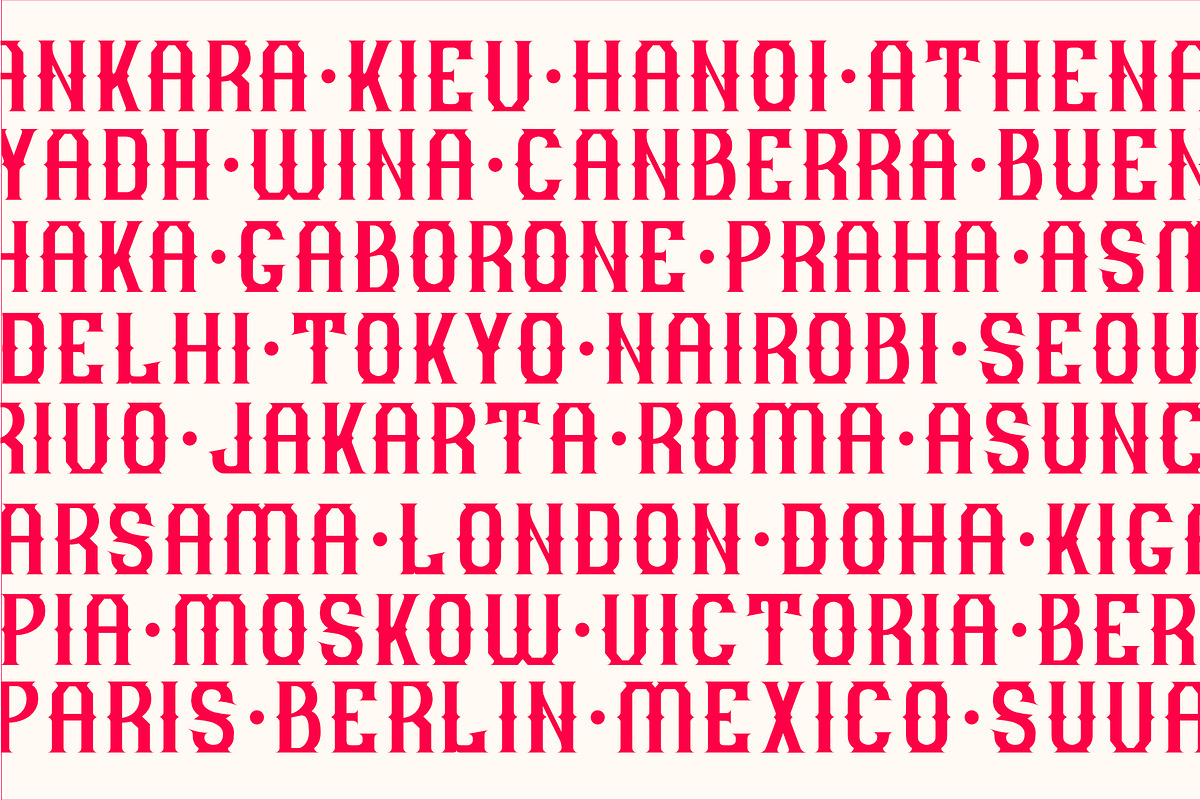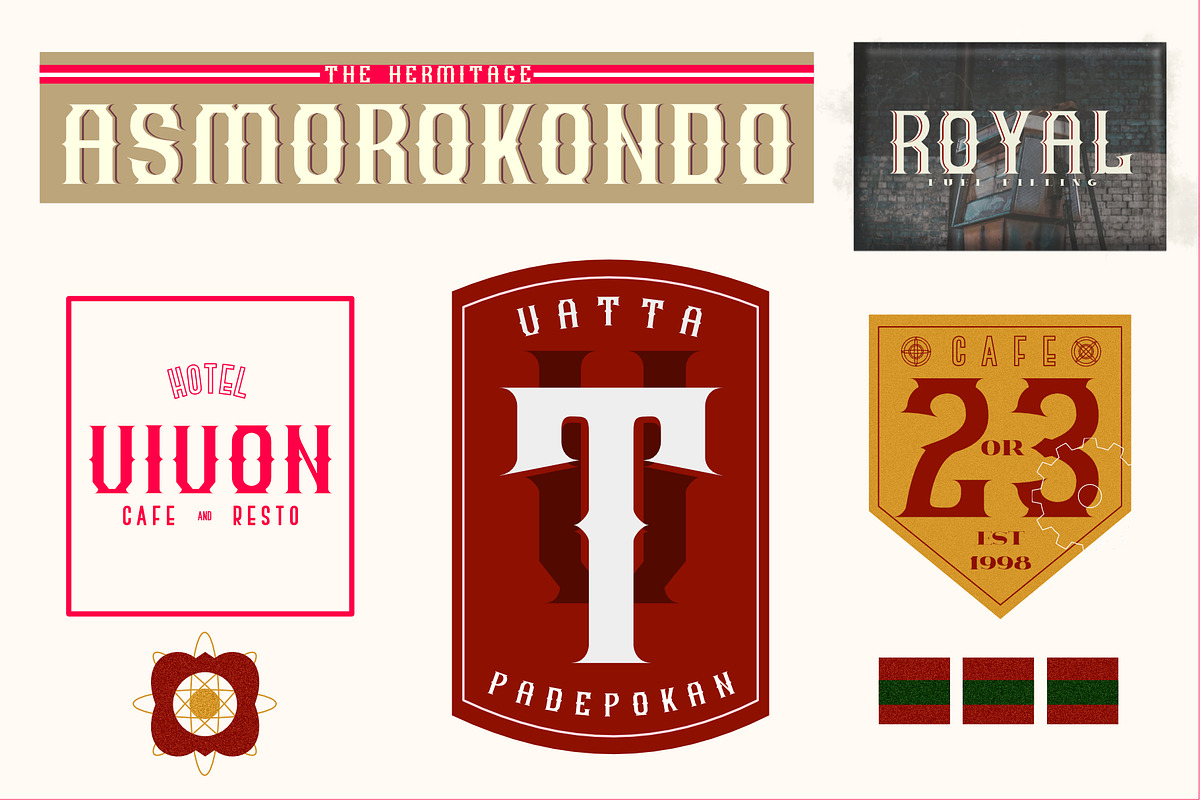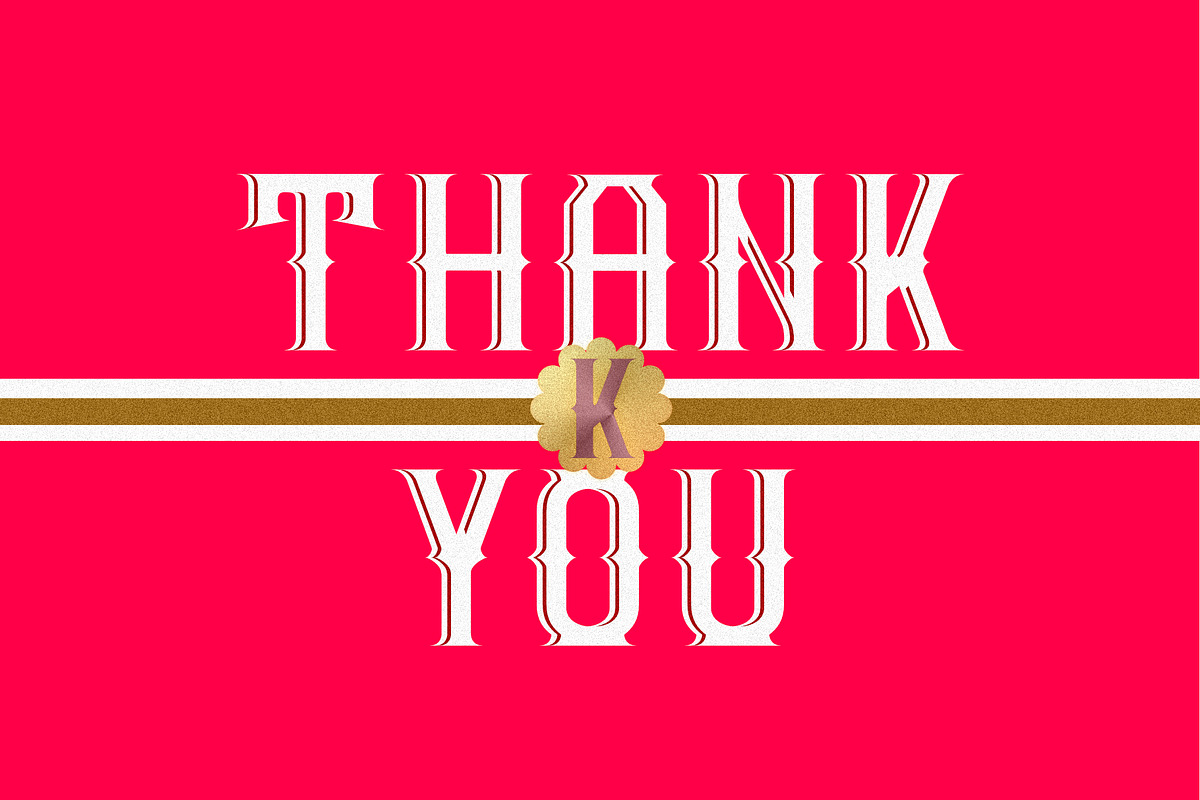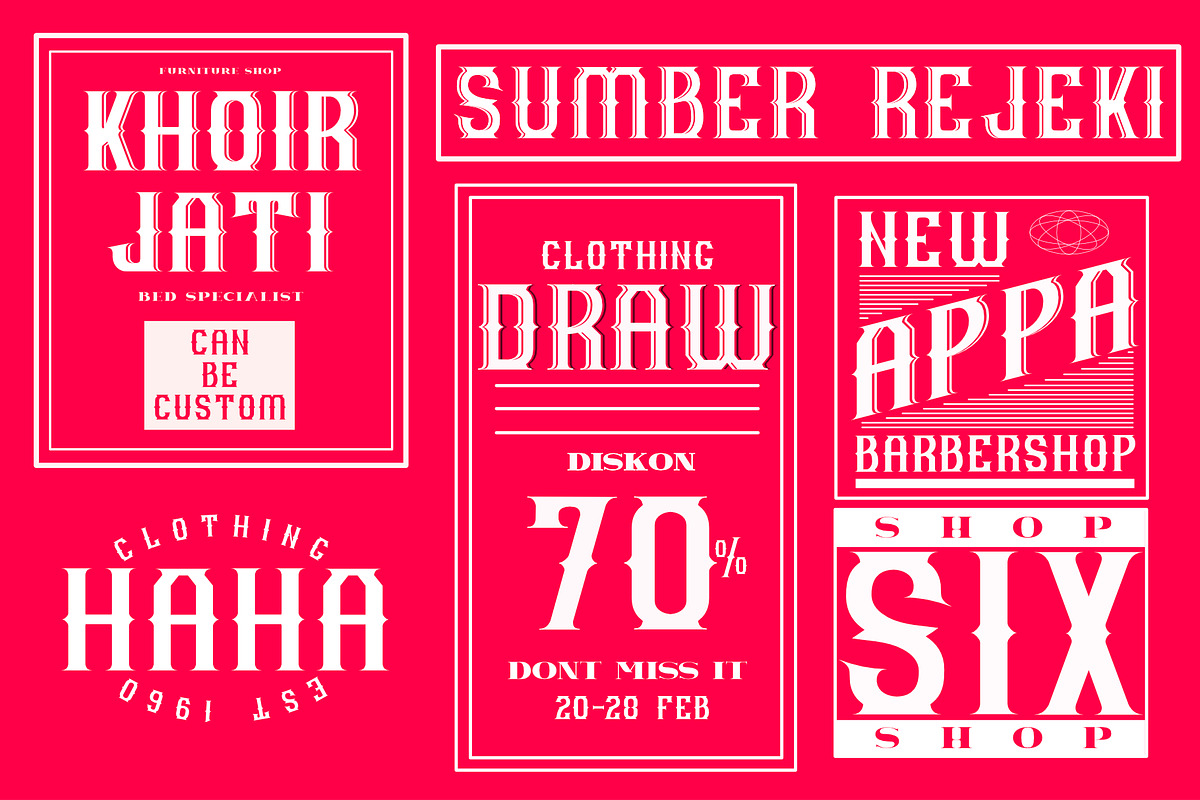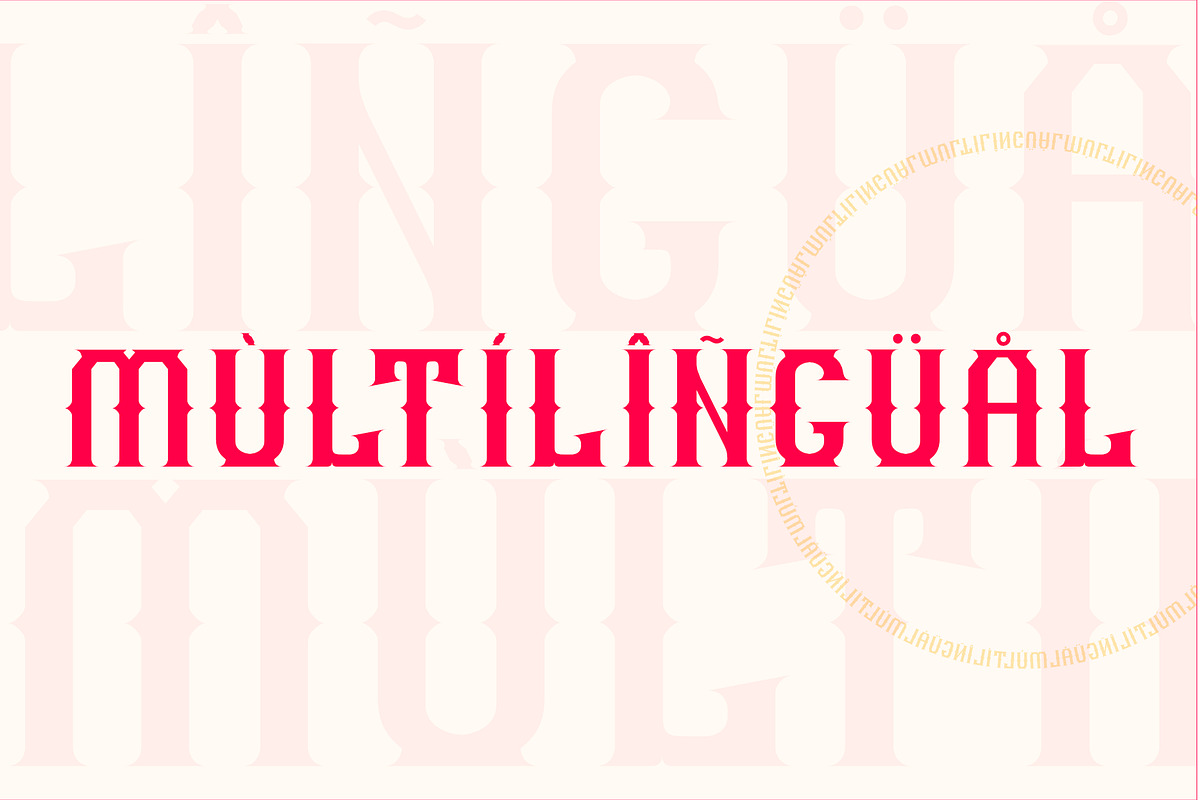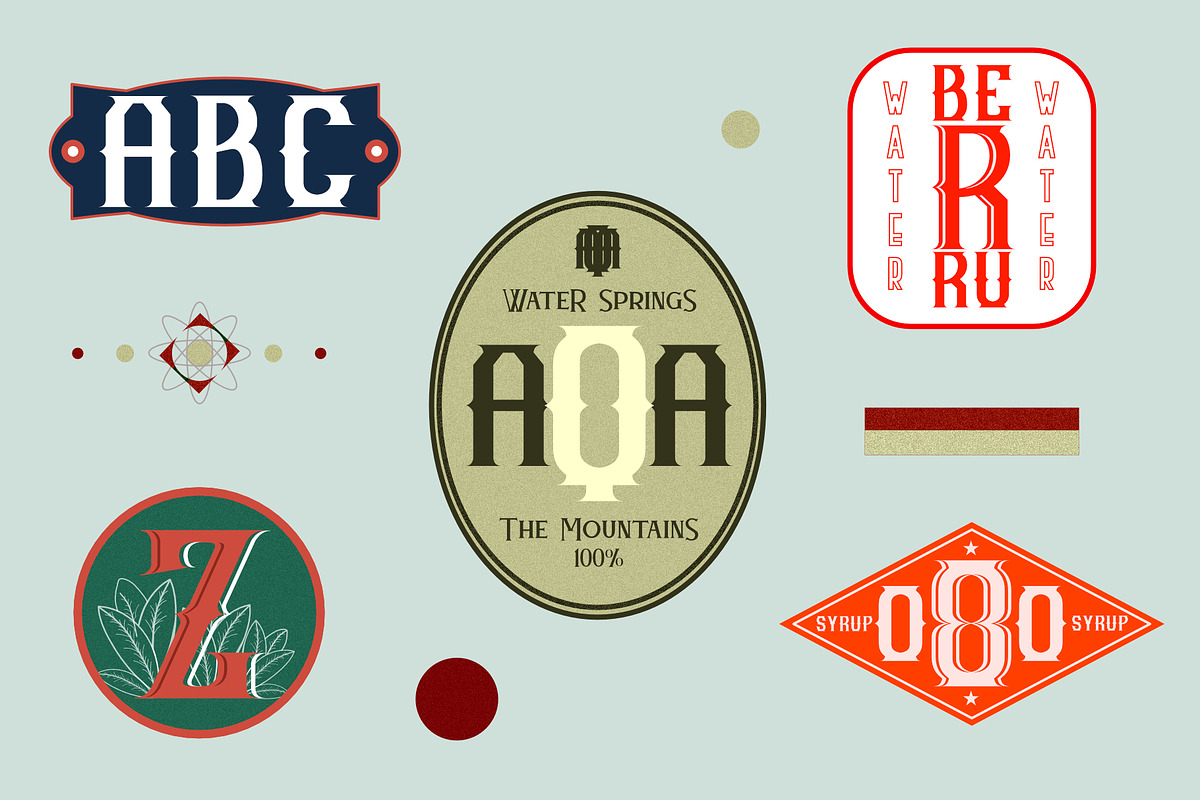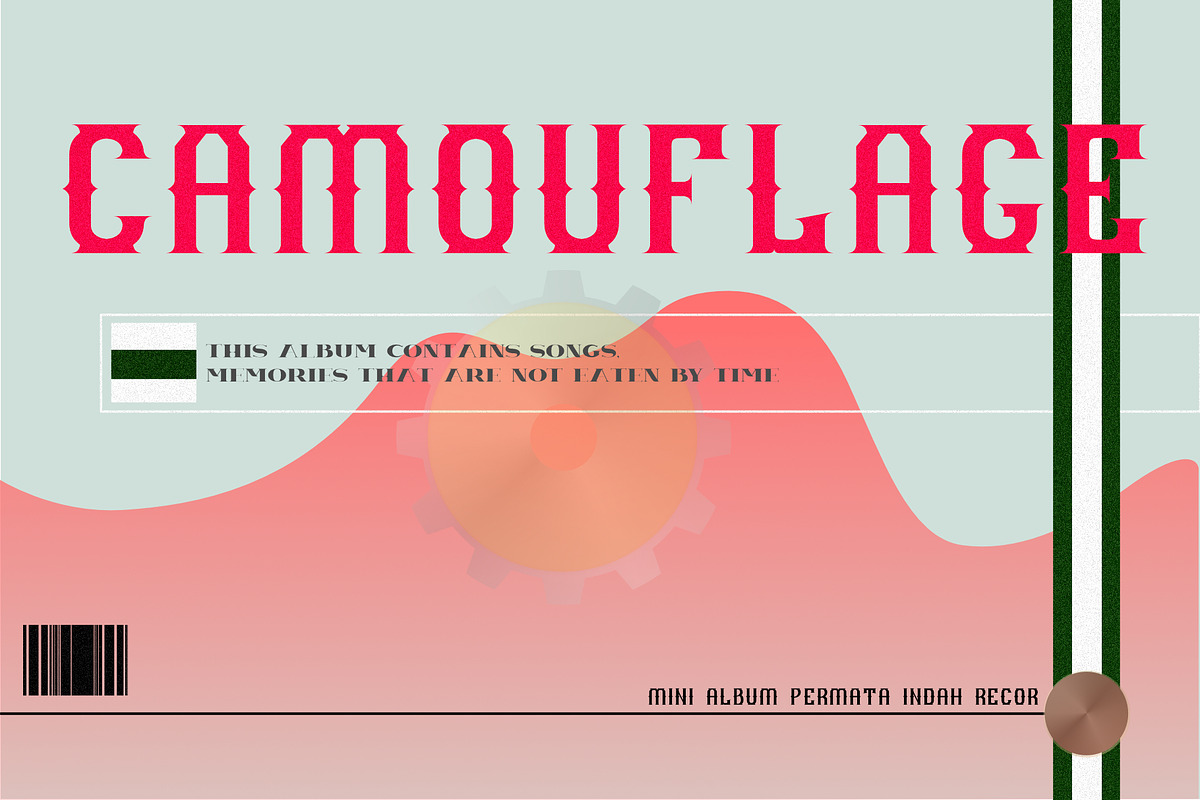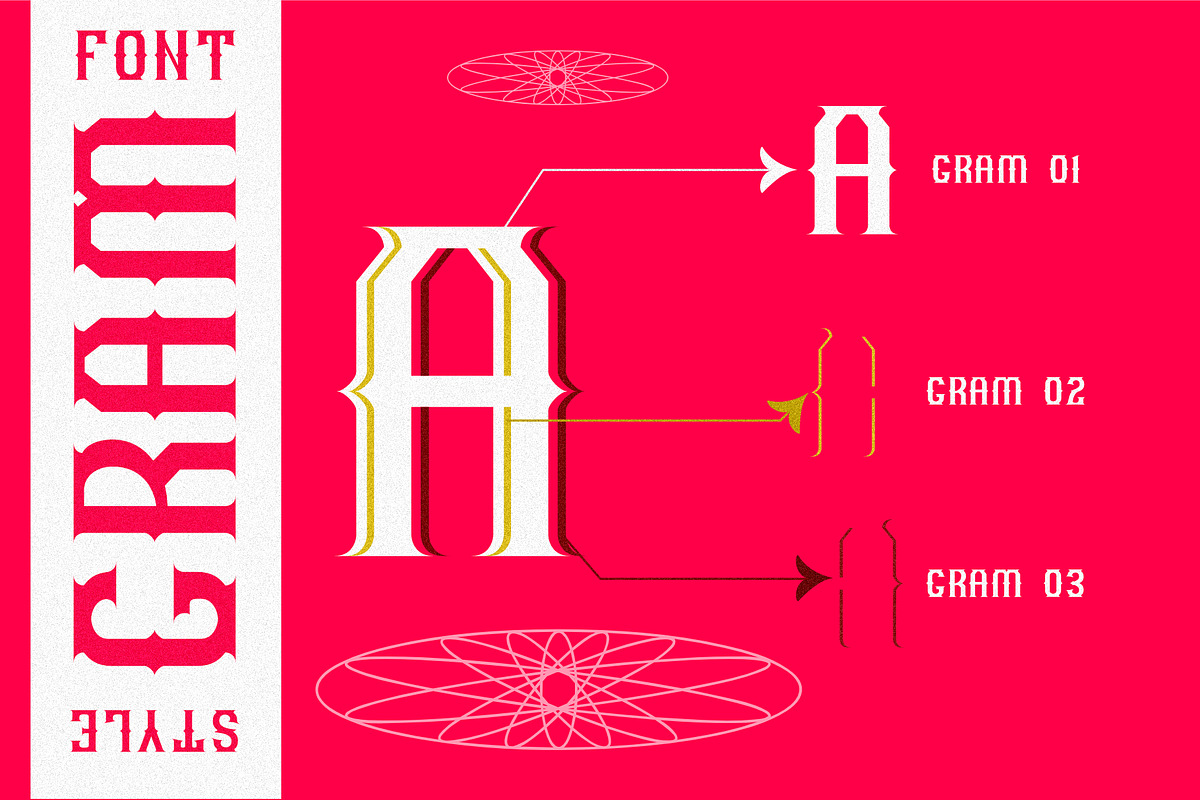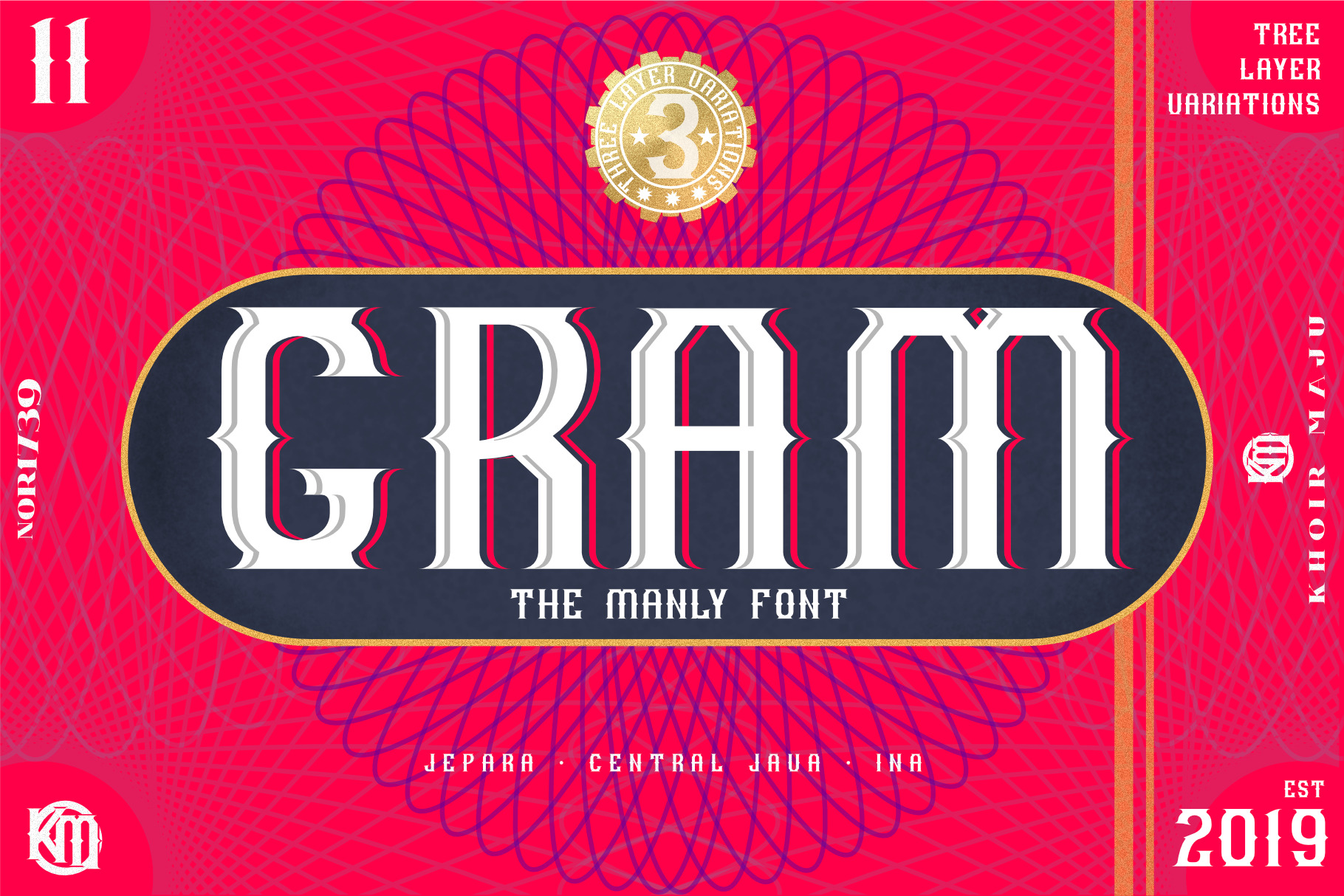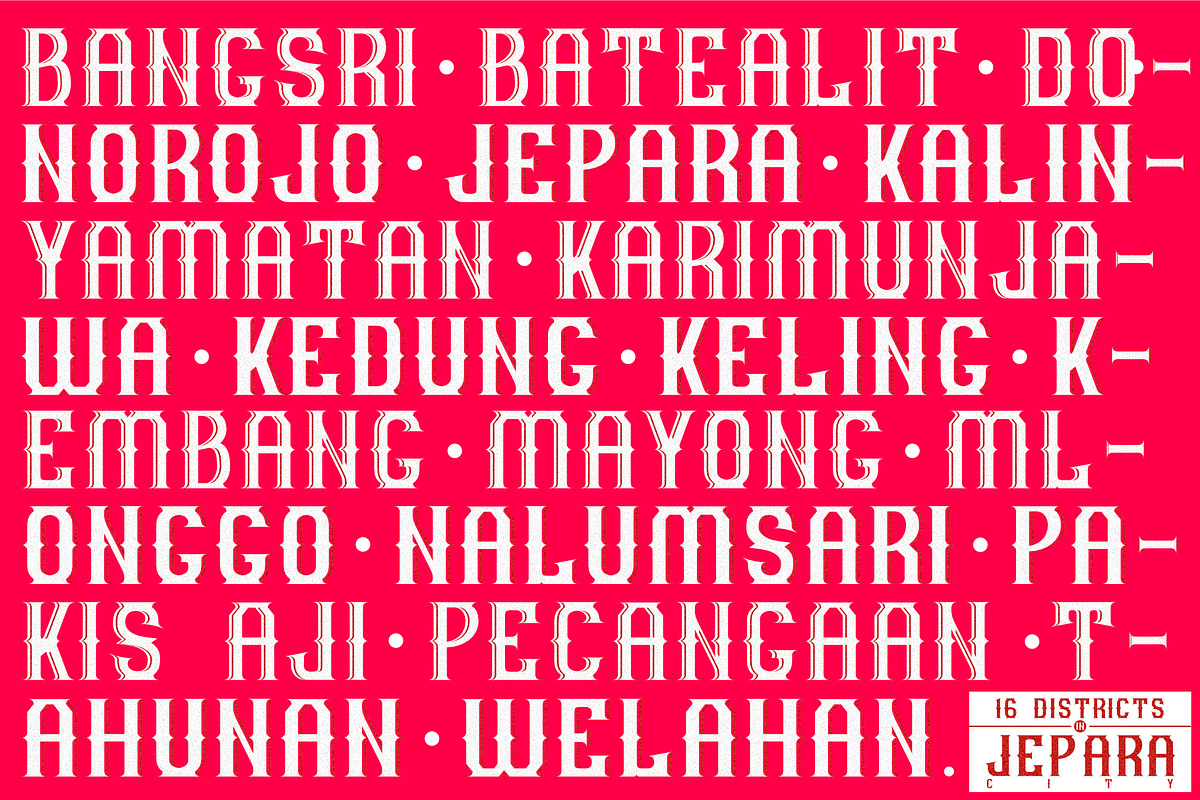
GRAM - New Display Font
introducing the elegant GRAM - New Display Font, combining ancient styles to modern nuances, GRAM comes with one main font and two layers of fonts that make it easy for you to apply it to the design style and make it easier for you to realize the design you want, so what are you waiting for?
GRAM is good for certificate, movie titles, posters, money designs, product packaging, logos, book covers, shop names and many other uses
Uppercase Characters Support of foreign languages: ÀÁÂÃÄÅÆÇÈÉÊËÌÍÎÏÐÑÒÓÔÕÖØÙÚÛÜÝ